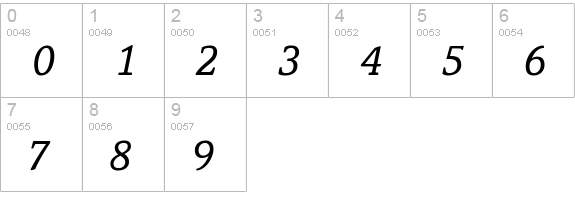
Corzinair Italic Font Details
Corzinair Italic is a distinctive, italic variant in the Corzinair typeface family \xE2\x80\x94 well suited to design and typography projects.
Corzinair Italic is a stylish and elegant font that exudes sophistication and modernity. Its sleek and slanted design adds a touch of flair to any project, making it perfect for both professional and creative purposes. The delicate curves and unique letterforms of Corzinair Italic make it stand out from the crowd, giving your text a distinctive and eye-catching appearance. What sets Corzinair Italic apart is that it is not only high-quality and visually appealing, but also free to download. Yes, you read that right – this stunning font is freely available for download at FontsMarket.com. Now you can elevate your designs without breaking the bank, thanks to the accessibility of Corzinair Italic. Whether you're working on a branding project, a website design, or any other creative endeavor, Corzinair Italic is sure to add a touch of sophistication and style. Download it today and see the difference it can make in your work!